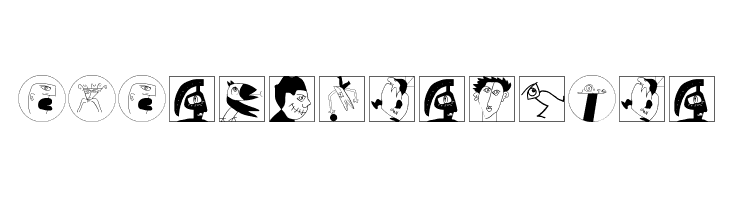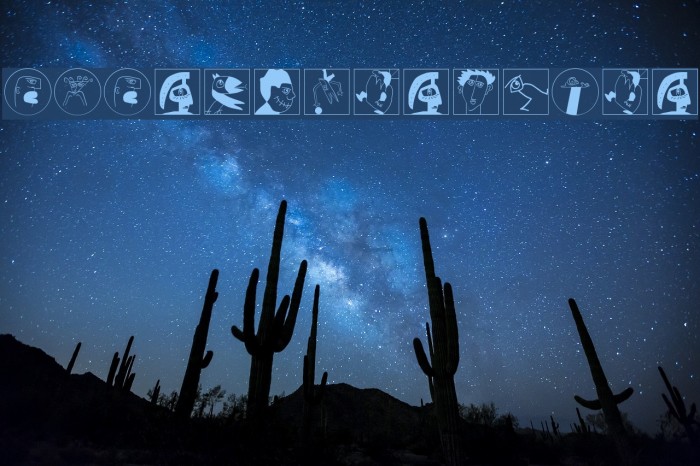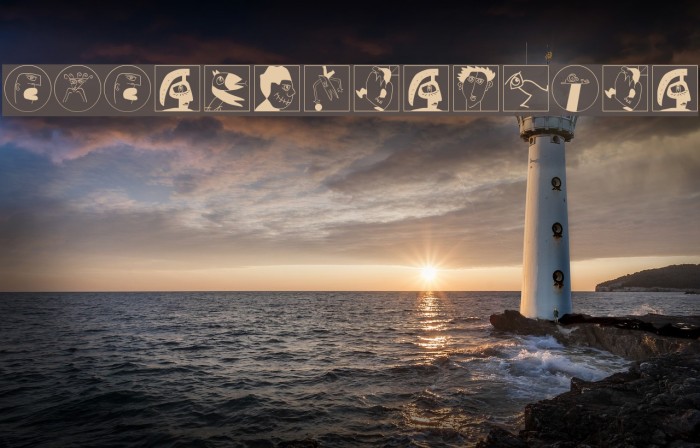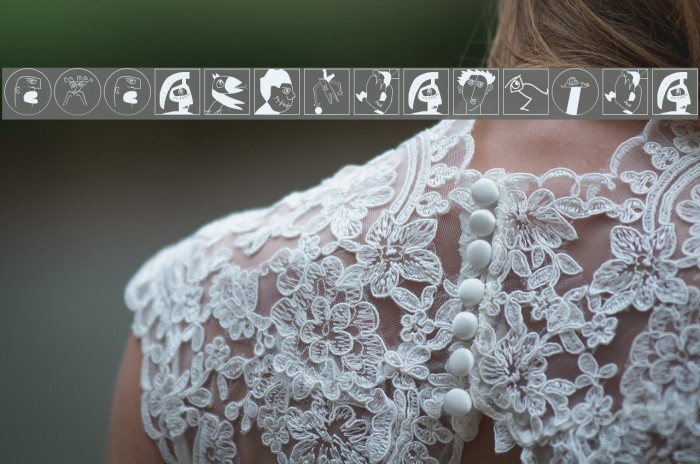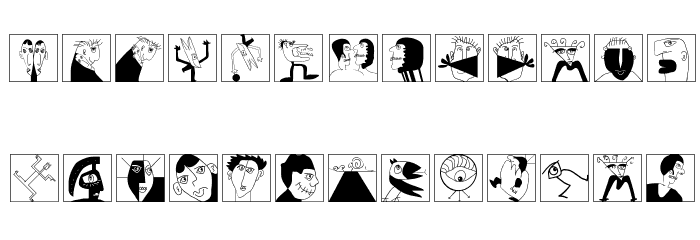
MKMouseworxTwo Font
MKMouseworxTwo Description
This is not a valid font. The image contains a series of abstract and artistic illustrations, each within a circular or square frame. These illustrations depict various stylized human faces and figures, each with unique expressions and poses. The designs are highly creative and artistic, focusing on visual storytelling rather than typographic elements. The characters are not consistent with traditional alphanumeric characters or symbols typically found in a font set.
Abstract illustrations in circular and square frames, not a traditional font from Uncategorized fonts.
- Proposed Projects: These illustrations could be used for artistic projects, such as graphic design, branding, or as decorative elements in creative publications.
- Overall Style: Artistic, Abstract
- Use Case: Artistic projects, Graphic design, Branding